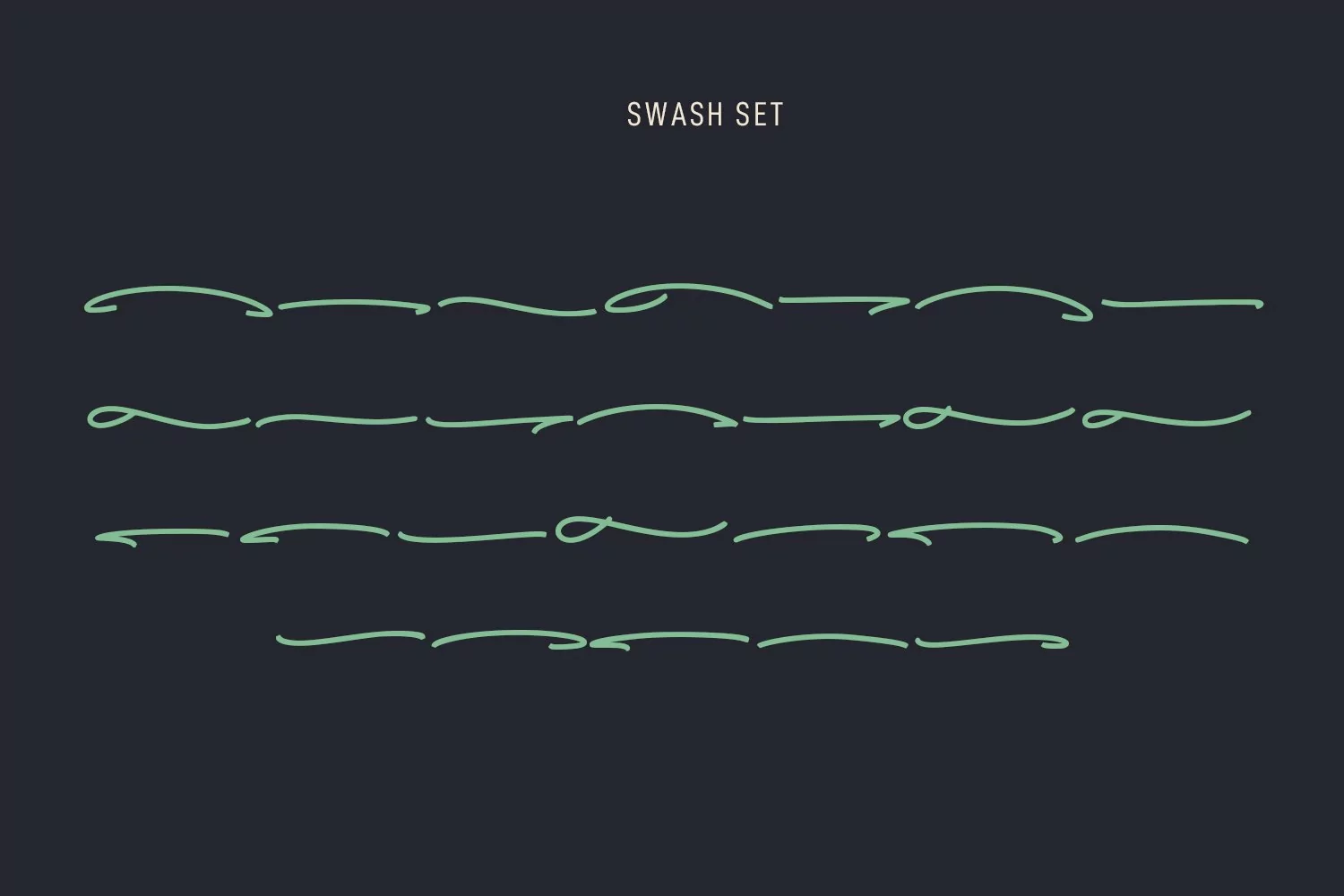
Risello Fruits is a Fancy script font. With mono-line stroke, slanted and fun character with a bit of ligatures and Extra Swash. To give you an extra creative work. Risello Fruits font support multilingual more than 100+ language. This font is good for logo design, Social media, Movie Titles, Books Titles, a short text even a long text letter and good for your secondary text font with sans or serif. Make a stunning work with Risello Fruits font.